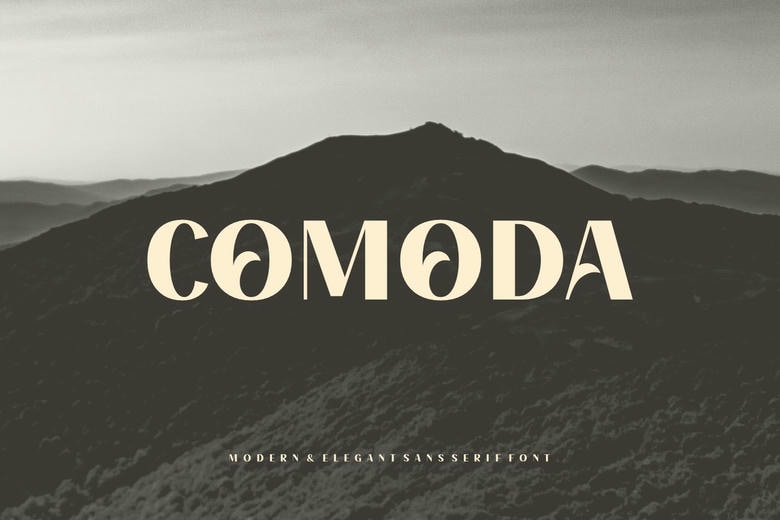
Comoda Font
Comoda is a modern sans serif typeface that contains elegance in terms of its designs. This is different from the other books because it has a neat look and it is easy to read. Perfect for the headlines as for the text of the article, Comoda gives a worthy look to anything. Suitable for websites, branding, and printed contents, it has a minimalist view but very professional at the same time.
Comoda Sans Serif Font